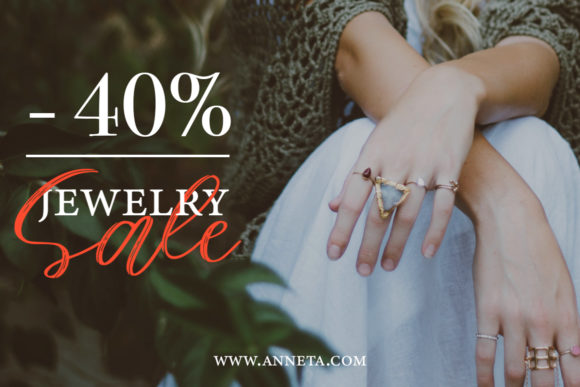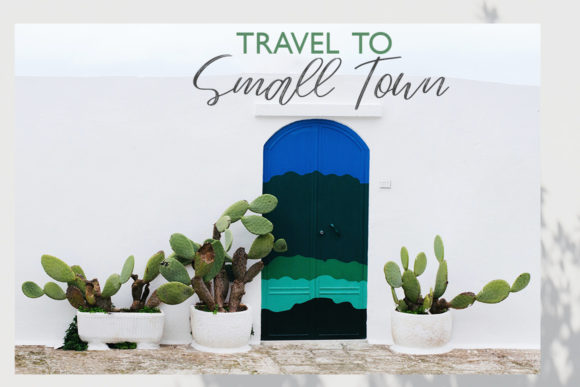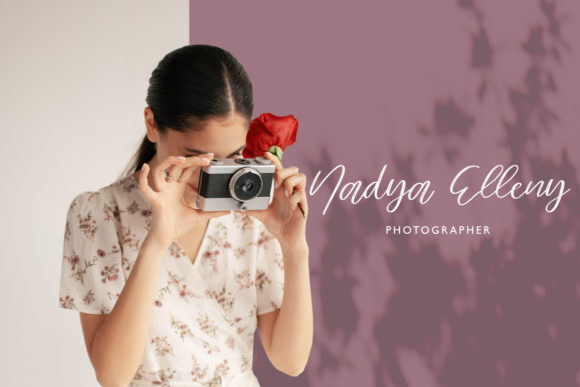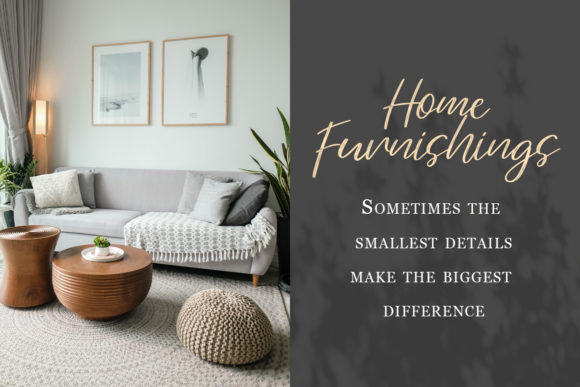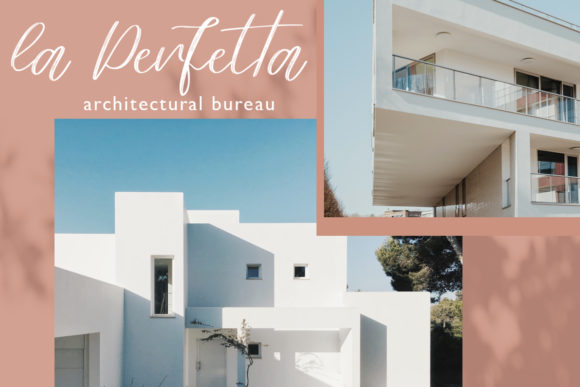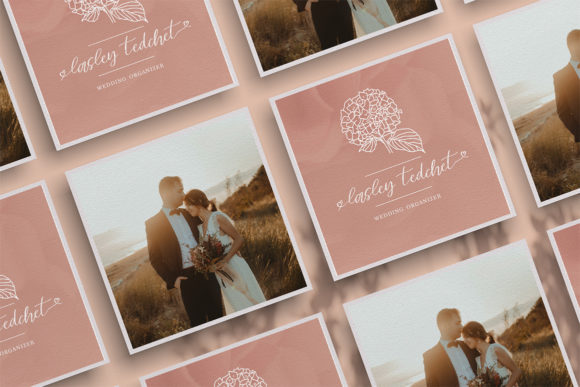
Introduction to Slimdream Font
Slimdream is an outstanding handwritten font, created with the help of a brush pen.
Fall in love with its incredibly versatile style and use it to create gorgeous wedding invitations, beautiful stationary art, eye-catching social media posts, and much more .
Slimdream Font offers exceptional quality and versatility, making it a valuable addition to your design toolkit. Whether you’re creating for personal projects or commercial use, Slimdream Font delivers professional results.